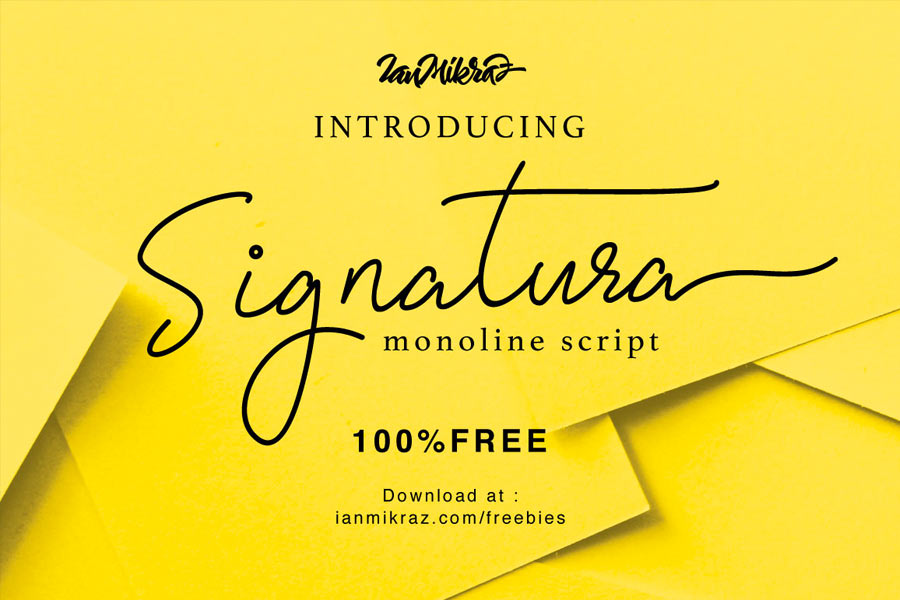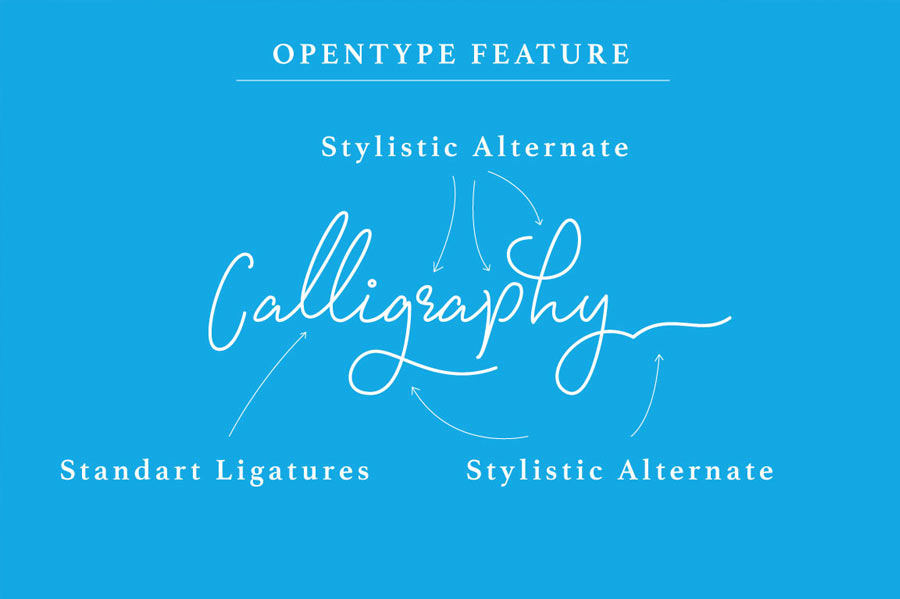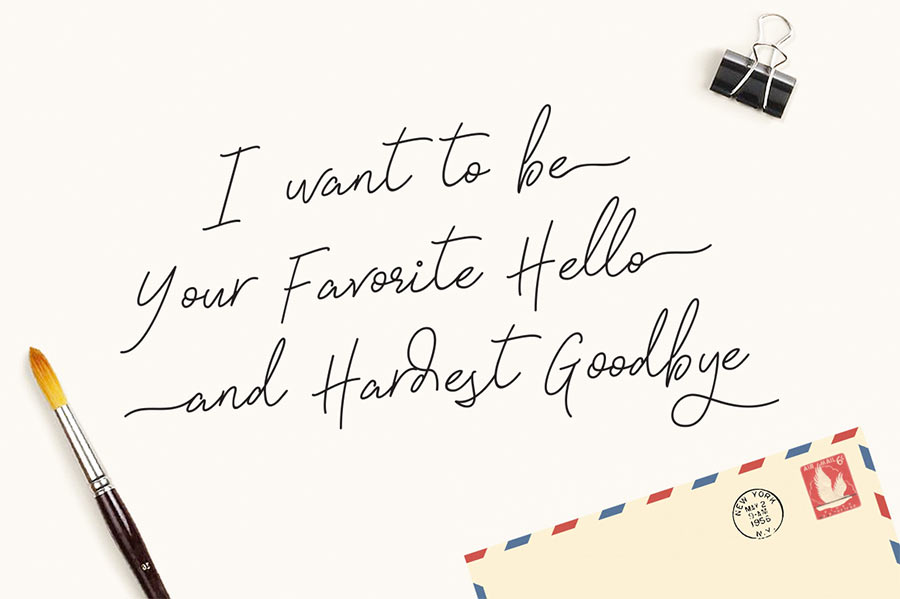
Signatura Monoline is an elegant script typeface that is true to natural human handwriting. It features 266 glyphs and 86 alternate character contain with opentype features. You can access those open type features with your favourite design tools.
Signatura Monoline is great for creating personal-touched designs like greeting cards, labels and even branding.
- Category: Handwriting, Script